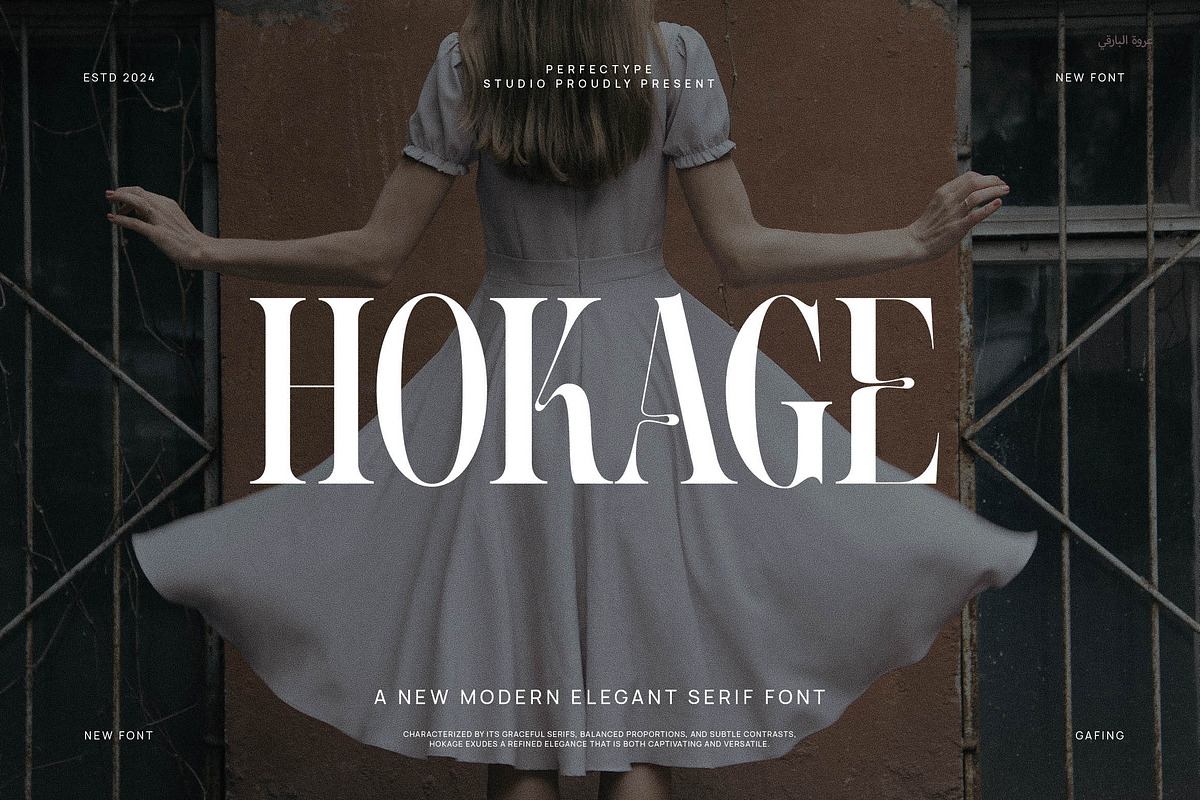
Channel elegance and strength into your typography with Hokage Elegant Serif Font Free Download — a sophisticated typeface designed for creatives who want boldness wrapped in refinement. With its sharp serifs and gracefully tall letterforms, Hokage is ideal for high-end branding, magazine titles, product packaging, and elegant logo designs.
Hokage’s timeless style blends traditional serif charm with a modern, minimalist aesthetic. It includes uppercase and lowercase letters, numerals, punctuation, and multilingual support — making it a powerful tool for global and refined design work.